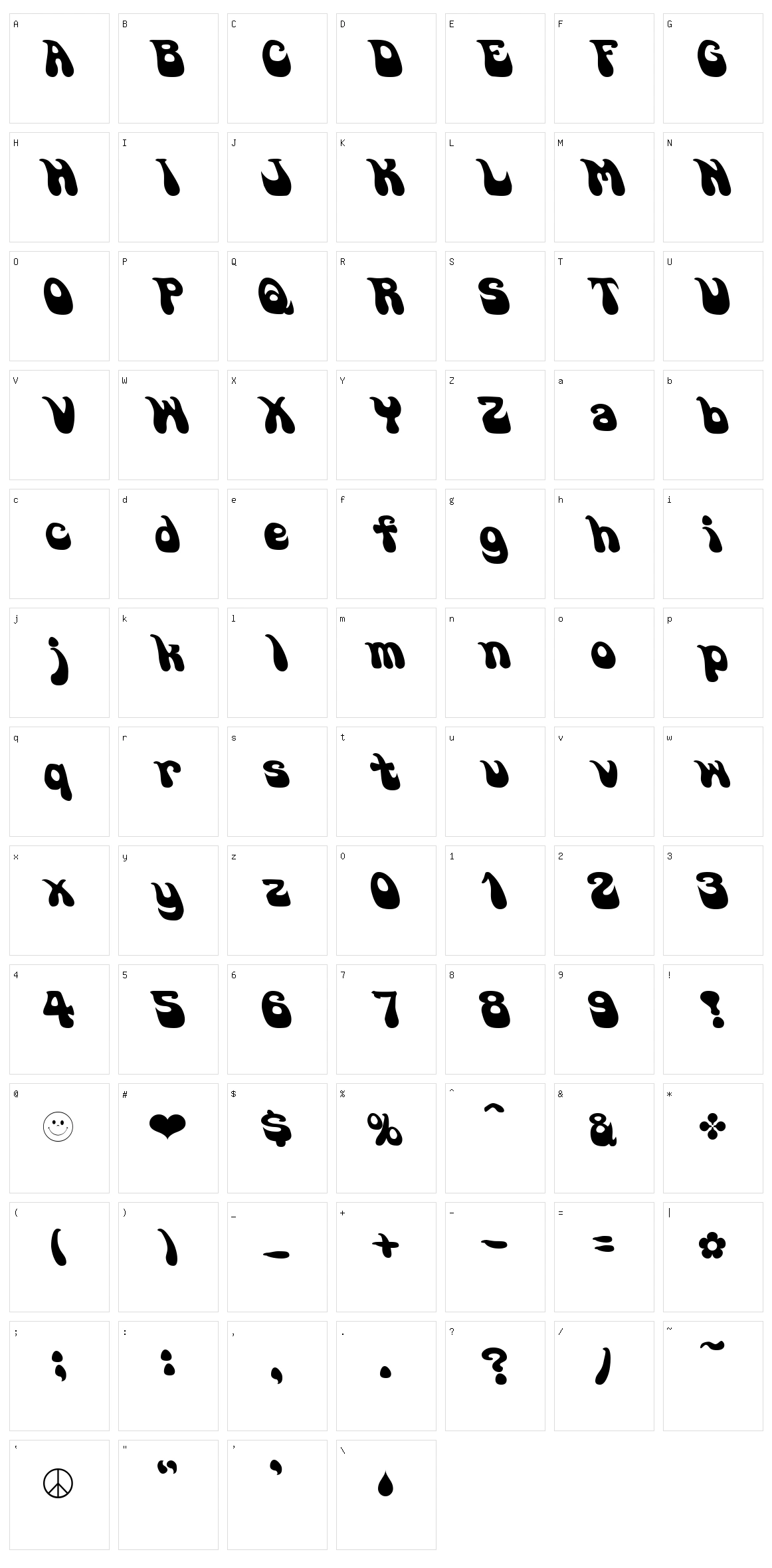
The free font Go Soul is carefully designed by Grass Onions, showcasing a thoughtful balance of creativity and usability and falls under the Groovy font style. When you download the ZIP file, it contains only 30.92 KB of font files, making it lightweight and quick to download. Please review the license details below to understand permitted usage and distribution rights. If license information is not available, we recommend using this font for personal projects only or contacting the author directly for commercial usage permissions.